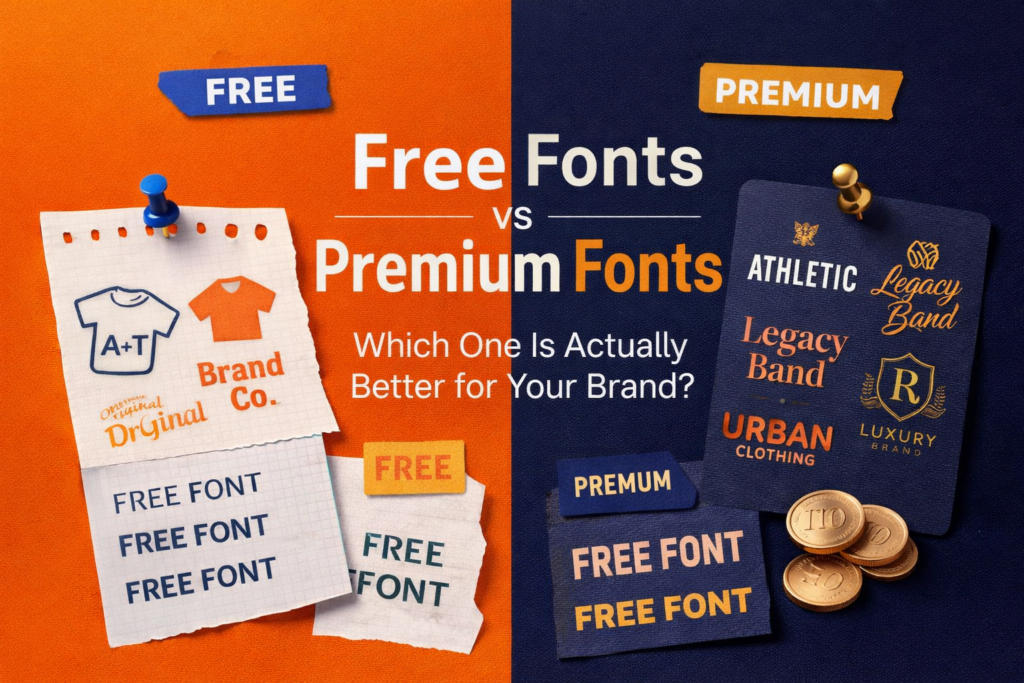
Font Free vs Premium: Which One Is Actually Better for Your Brand?
Introduction: Fonts Are Not Just Design Elements
Many brands struggle to look professional — not because their products are bad,
but because they use the wrong font.
In today’s competitive digital world, fonts are no longer just letters.
They are a core part of brand identity, shaping how people perceive your business before they even read your message.
Yet, many businesses still rely on free fonts without understanding the risks, limitations, and long-term impact on branding.
So the real question is:
Are free fonts actually free — or do they cost you more in the long run?
What Are Free Fonts?
Free fonts are typefaces that can be downloaded without payment.
However, free does not always mean free for commercial use.
Most free fonts come with restrictions such as:
• Personal use only
• No logo usage
• No commercial distribution
• No use in monetized content
Unfortunately, these license terms are often ignored.
This is where many brands unknowingly put themselves at risk.
The Hidden Risks of Using Free Fonts for Business
1. Your Brand Looks Generic and Forgettable
Free fonts are used by:
• Thousands of brands
• Countless social media posts
• Endless logos and templates
As a result, your brand loses visual uniqueness.
If everyone uses the same font, your brand becomes invisible.
2. Legal and Licensing Problems
Using a font without the correct license can lead to:
• Copyright claims
• Content takedowns
• Monetization issues on YouTube or social platforms
• Forced rebranding and redesign
These problems don’t appear immediately — but when they do, they are expensive.
3. Free Fonts Are Not Built for Professional Branding
Most free fonts:
• Lack consistency across different media
• Are not optimized for logos and headlines
• Do not scale well for commercial use
They may look “good enough” at first, but they fail when a brand starts to grow.
What Is a Premium Font?
A premium font is a professionally designed typeface that comes with a clear commercial license.
Premium fonts are created with branding in mind:
• Strong visual character
• High readability
• Consistency across print and digital media
• Legal protection for commercial use
Premium fonts are not about luxury — they are about strategy.
Why Premium Fonts Are a Smart Branding Investment
✔ Exclusive and Original
Premium fonts are not mass-used.
They help your brand stand out and feel distinctive and intentional.
✔ Safe for Commercial Use
With a proper license, premium fonts can be used for:
• Logos
• Websites
• Social media
• Advertising
• YouTube, TikTok, and monetized content
• Physical products and packaging
No stress. No legal risks.
✔ Higher Perceived Brand Value
Consumers judge brands visually — instantly.
A well-chosen premium font:
• Builds trust
• Signals professionalism
• Makes your brand feel established
People are more likely to buy from brands that look serious.
Why Big Brands Never Use Free Fonts
Successful brands understand one key principle:
Branding is not about being cheap.
It’s about being memorable.
Premium fonts allow brands to:
• Control their visual identity
• Create emotional connections
• Maintain consistency across all platforms
That’s why professional brands treat fonts as assets, not shortcuts.
Ronny Studio Fonts: Designed for Branding and Sales
Fonts from Ronny Studio are created specifically for:
• Brand identities
• Logos
• Posters and flyers
• Apparel and merchandise
• Social media content
• Digital marketing and advertising
Each font is:
• Original
• Professionally crafted
• Ready for commercial use
• Designed to support strong visual branding
Free Fonts vs Premium Fonts: A Clear Comparison
Free Fonts
• No upfront cost
• Limited usage rights
• Generic appearance
• High legal risk
Premium Fonts
• One-time investment
• Clear commercial license
• Strong brand identity
• Long-term safety
The difference is not just design — it’s business impact.
Conclusion: Fonts Are Not an Expense — They Are an Investment
If you are serious about your brand,
your font choice should support growth, credibility, and consistency.
Free fonts may save money today,
but premium fonts protect your brand tomorrow.